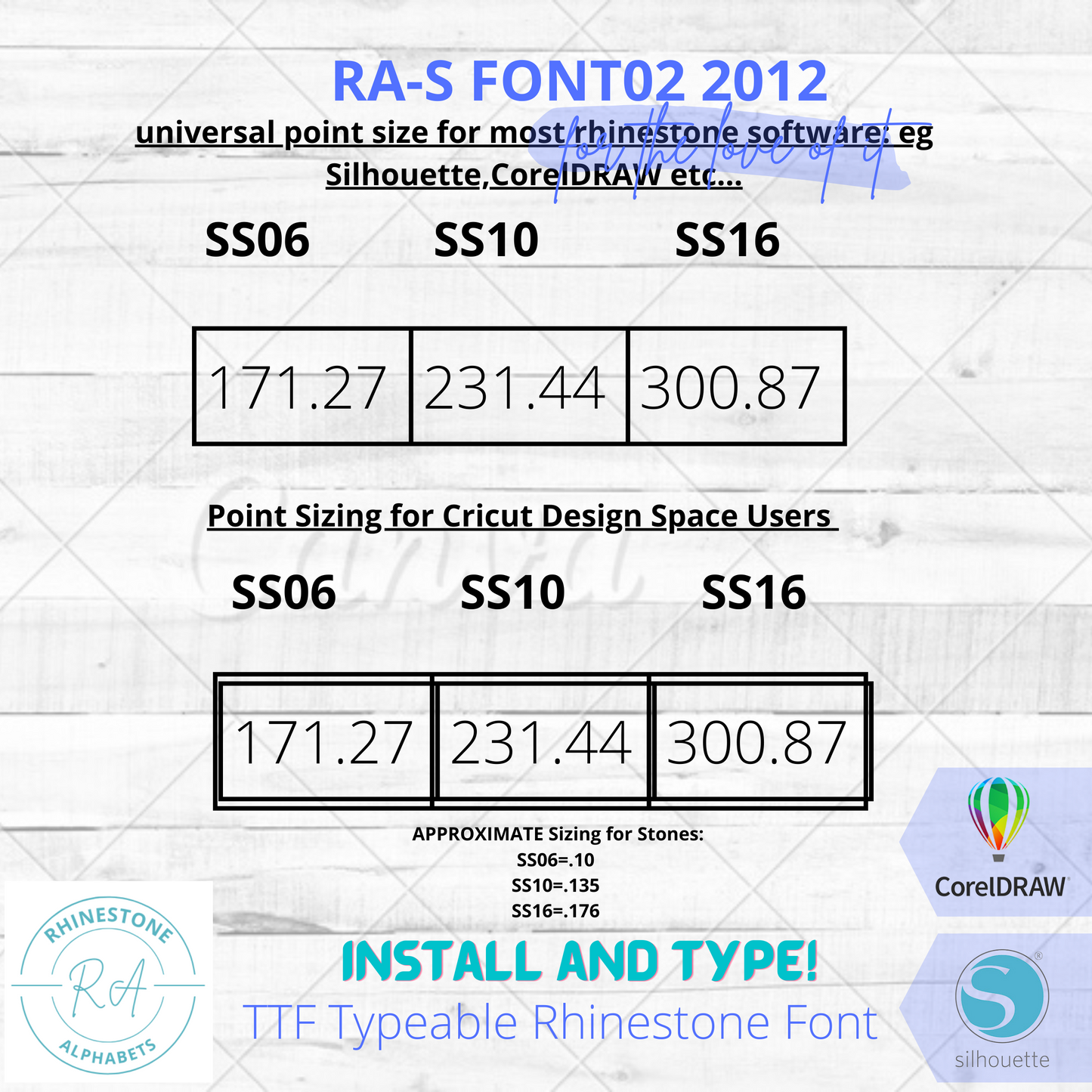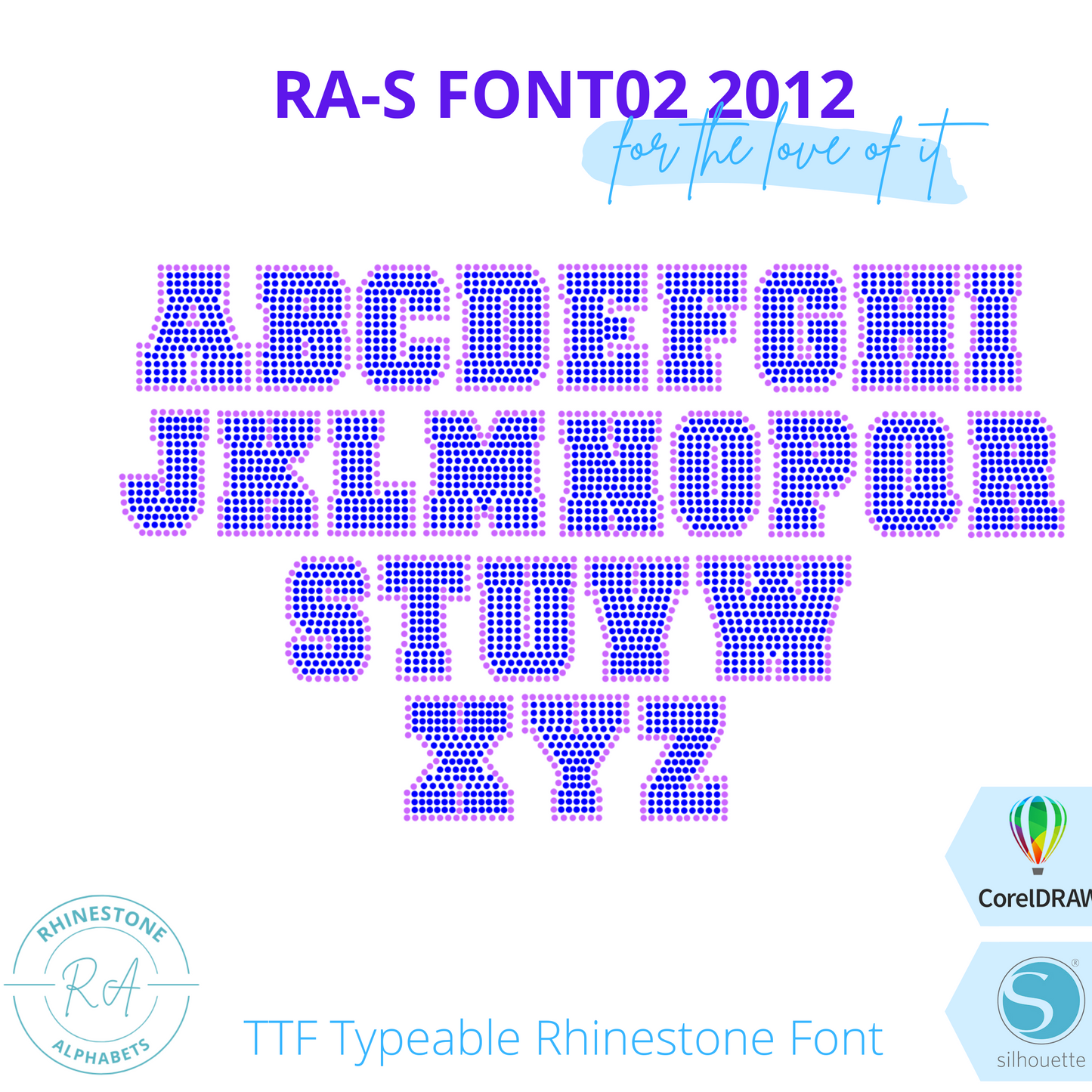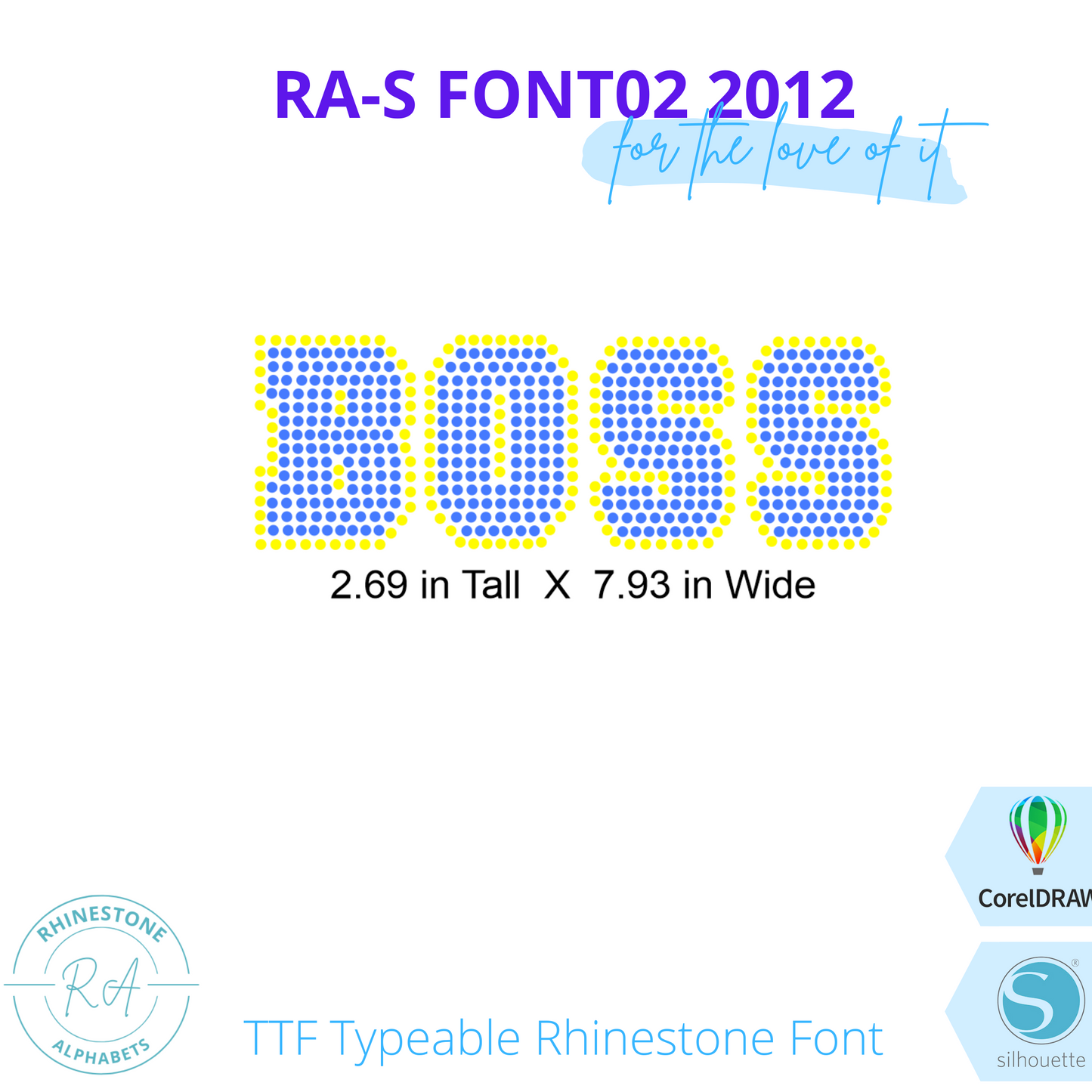
RA-S Font02 2012 a TTF typeable Rhinestone Font. Combo 2 color
uppercase
2.33"
Combo
This font is the great for adding bold text to your projects. With the right font size and weight, your team names, logos, or messages will have an impact that's sure to make a statement.